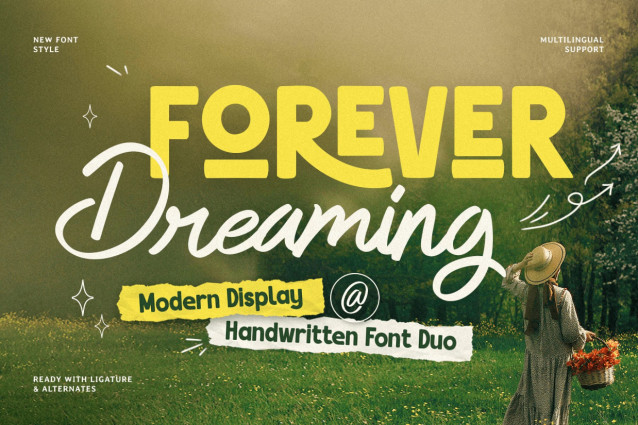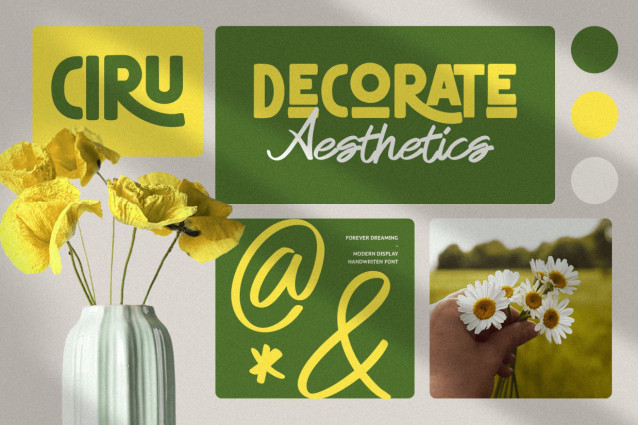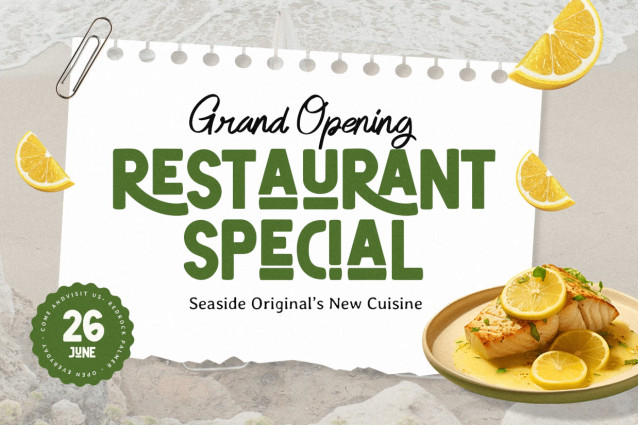
FOREVER DREAMING is a modern display handwritten font duo that combines expressive handwriting with a stylish display character. Designed with a dreamy and artistic feel, this font pairing creates a beautiful balance between elegance, personality, and contemporary design.
Perfect for luxury branding, wedding invitations, logos, packaging, social media graphics, quotes, and editorial projects, FOREVER DREAMING brings a romantic and creative atmosphere to every layout. The combination of handwritten details and modern display forms allows designers to create unique visual identities with a personal touch.
Whether used for fashion brands, lifestyle products, stationery, or digital content, FOREVER DREAMING adds charm and sophistication. This versatile font duo is crafted for creators who want their designs to feel memorable, emotional, and beautifully handcrafted.
FOREVER DREAMING – Modern Display Handwritten Font Duo Features
• Elegant combination of handwritten and modern display styles
• Creative font duo for stylish design combinations
• Perfect for branding, logos, invitations, and packaging
• Includes uppercase, lowercase, numerals, and punctuation
• Ideal for wedding, fashion, lifestyle, and editorial projects
• OpenType features for enhanced typography
• Works beautifully for digital and print applications